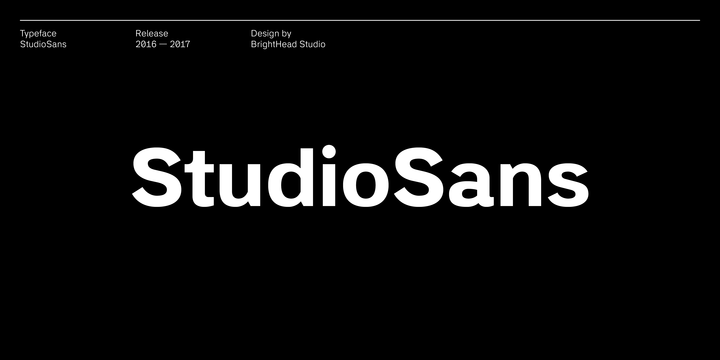
StudioSans Font Family
Introducing Studio Sans Font! It is designed and shared by BrightHead Studio. StudioSans — is a modern representative of the class of sans-serif fonts inspired by the traditional Swiss design and typography of the mid 20th century. This is a minimal, clean and open font family with friendly forms. Focuses on functionality, has a high x-height and short ascender and descender elements. This is combined with soft circles and high legibility of characters contributing to comfortable reading.